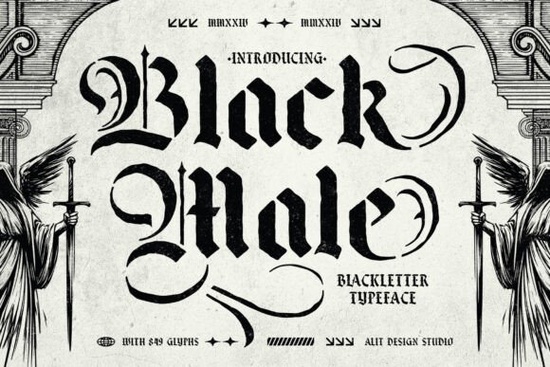
If you work with screen printing, laser engraving, or vinyl lettering, you know the frustration of choosing a typeface that looks great on screen but falls apart when you cut it. A stencil font needs to balance style with structural integrity every letterform must have those deliberate gaps that keep the design from collapsing. That’s exactly where Black Male Font comes in. It’s a blackletter stencil typeface that mixes historical calligraphy with modern industrial aesthetics, giving you 849 glyphs to play with, including alternates, swashes, and ligatures.
Unlike many decorative fonts that look good but don’t hold up in production, this one is engineered for real-world use. Let’s break down what makes it worth considering for your next project.
What makes a blackletter stencil font different from a regular blackletter?
Traditional blackletter fonts are dense, ornate, and often connected beautiful for printed books or posters, but nearly impossible to use for stencil work. A stencil version reimagines those classic letter shapes with intentional breaks and cuts so the design remains intact when you remove the negative space. Black Male does this well. The stencil cuts are placed where they make sense structurally, which means you won’t end up with floating pieces or weak spots in your cut material.
This makes it a practical choice for:
- Screen printing on fabric or paper
- Laser cutting on wood, acrylic, or metal
- Vinyl lettering for signs and decals
- Engraving on leather or glass
If you’ve ever tried to convert a regular blackletter font into a stencil manually, you know how much time it saves to start with one that’s already designed for it.
Is this font suitable for laser cutting and engraving?
Yes, specifically because of how the stencil gaps are engineered. The designer paid attention to the structural soundness of each cut, which matters when you’re working with materials that can’t be easily patched or adjusted. For laser cutting, the clear separation between letter parts means less burn-through and cleaner edges. For engraving, the bold weight provides enough depth to show up well on wood or metal without losing readability.
One thing to note: because this is a blackletter-style font, it works best at medium to large sizes. At very small sizes, the detail in the swashes and alternates might get lost, especially in physical materials. Keep that in mind when scaling down for smaller products like keychains or jewelry tags.
How can designers use this for streetwear and apparel?
Streetwear brands love blackletter fonts because they carry an edgy, bold look that stands out on t-shirts, hoodies, and hats. Black Male fits right into that aesthetic. The medieval-inspired shapes give a vintage feel, while the stencil construction adds a raw, industrial vibe that pairs well with distressed graphics or grunge textures.
For apparel design, the large character set is a real advantage. You get multiple alternates for many letters, which means you can create unique wordmarks or logos without repeating the same exact shapes. The ligatures help smooth out awkward letter combinations, keeping your designs looking polished rather than forced.
Some practical applications include:
- Band merchandise and music festival branding
- Skateboard and streetwear clothing lines
- Gothic or fantasy-themed apparel collections
- Limited edition drops that need a distinctive look
For print-on-demand sellers, this font gives you a distinct style that isn’t overused in the marketplace. It can help your designs stand out from the usual sans-serif or script options.
What extras come with the full character set?
The font includes 849 glyphs, which is generous for a blackletter stencil. Beyond the standard uppercase and lowercase letters, you get:
- Alternates – Different versions of key letters so you can customize the look
- Swashes – Decorative flourishes for a more ornate finish
- Ligatures – Connected letter pairs that improve flow
- Stylistic sets – Grouped alternates that let you switch between different moods
These extras are useful when you’re designing logos, headlines, or any project where typography is the main visual element. You can tweak the letterforms until they feel right, rather than being stuck with whatever the basic font file gives you.
Where does this font work best in practice?
Based on the design and features, here are the use cases where Black Male really shines:
- Signage and cut-out applications – The stencil gaps are pre-optimized, so you get clean cuts without guesswork
- Tattoo and artistic designs – The bold lines and historical feel translate well to body art and illustrations
- Album covers and posters – Blackletter always stands out in music-related design
- Metal and wood engraving – The clear shapes hold up in physical materials
- Vintage and medieval-themed projects – If you’re designing for fantasy settings or historical aesthetics, this fits